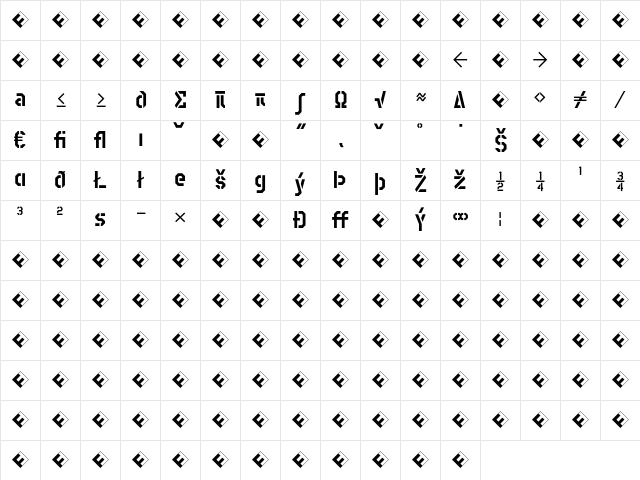
Complete Container RegularExpert glyph index. Displaying only characters natively supported by Container RegularExpert font.
Container is a composed and adaptable typeface that performs quietly and consistently across a wide range of design contexts.